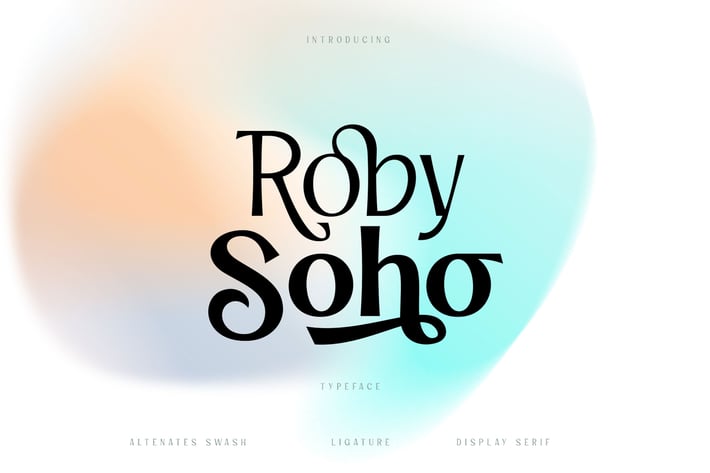
Roby Soho Typeface
Introducing Roby Soho Typeface
The Roby Soho font is inspired by today's simple styles, the Roby Soho font is a serif typeface with alternative support that can make your designs more interesting and unique than others. In addition, the Roby Soho font also has multi-language that is easy to use. This is a versatile font that works great in both small and large sizes, for body text or header text.
The Roby Soho font is also supported with a variety of families from thin version to Black version. It is suitable for editorial design projects, logo designs, branding, product packaging, magazine covers, Instagram posts, social media text stories, and so on.